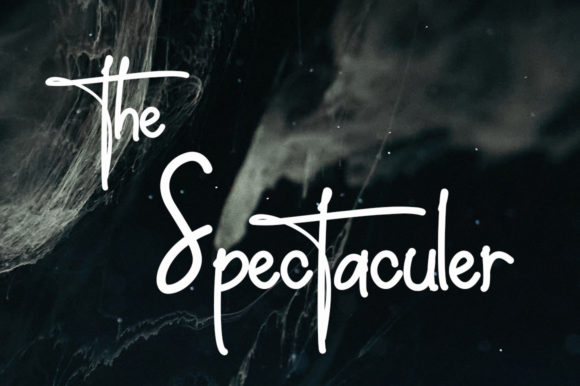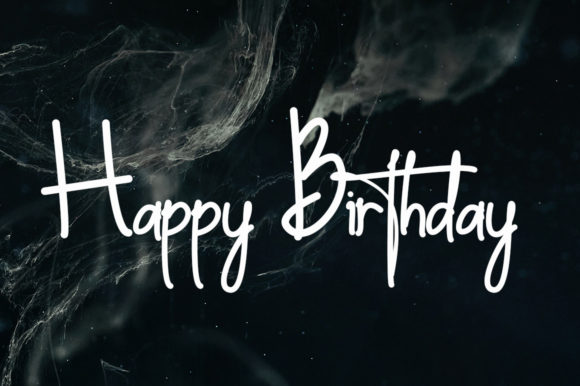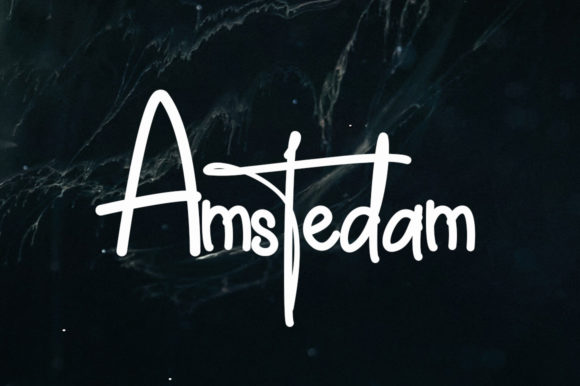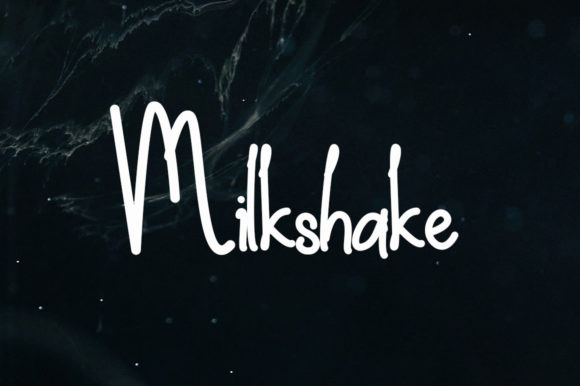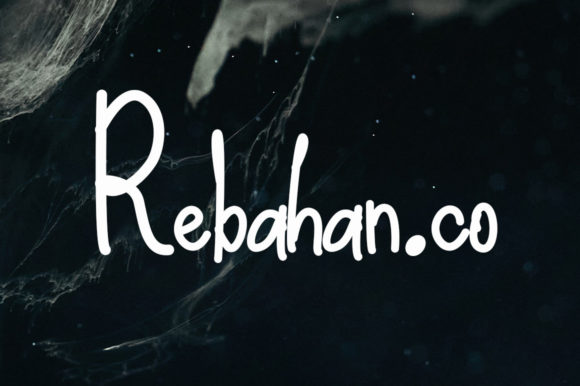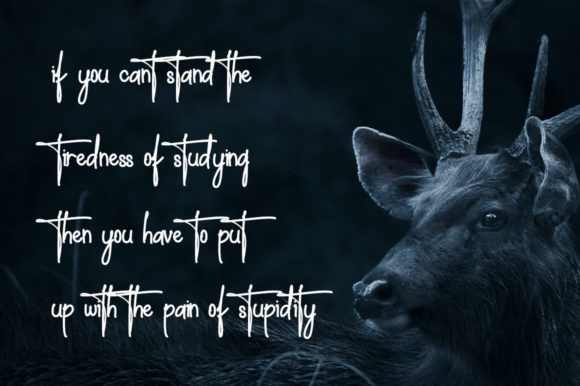
The Perfect Script for Your Creative Masterpiece
Have you ever been in the middle of a design project, pouring your heart and soul into every detail, and suddenly, it all comes together with the perfect font? For many designers, that moment is pure magic. And if you’re one of them, you might be looking for the perfect script font to elevate your creations. That’s where the Angelina Signature Font comes in – a stunning free-flowing script font designed to add that extra oomph to your packaging, invitations, and event posters.
This beautiful and balanced font is a valuable addition to any designer’s toolkit, offering a unique and elegant touch to any project. Whether you’re a seasoned pro or just starting out, the Angelina Signature Font is sure to impress, and its versatility makes it a must-have for any design project.
Angelina Signature Font Key Features
- Unique Characteristics: The font features elegant, cursive lines with a touch of sophistication, making it perfect for signatures, logos, and other handwritten-style designs
Designer Review: Angelina Signature Font
Overall, I was really excited to dive into the Angelina Signature Font, but my experience was a mixed bag. Let’s start with the good stuff!
- The font’s elegant and refined design is perfect for creating a sophisticated, high-end look.
- The script style is highly customizable, making it easy to adjust to suit your design needs.
- The font includes a wide range of language support, making it a great choice for designers who work with international clients.
- The font’s design, while elegant, may be a bit too ornate for some designs, potentially overwhelming the message.
- The font’s weight options are limited, which may make it difficult to achieve a consistent look across different design elements.
Overall, the Angelina Signature Font is a solid choice for designers who need a high-end, elegant script font. While it has some limitations, its customization options and wide language support make it a great choice for a variety of design projects.
The Angelina Signature Font is perfect for:
- Personal branding and signature designs.
- Adding a touch of elegance to your social media posts.
For the best results, use the Angelina Signature Font in conjunction with high-quality images and a clean design aesthetic.